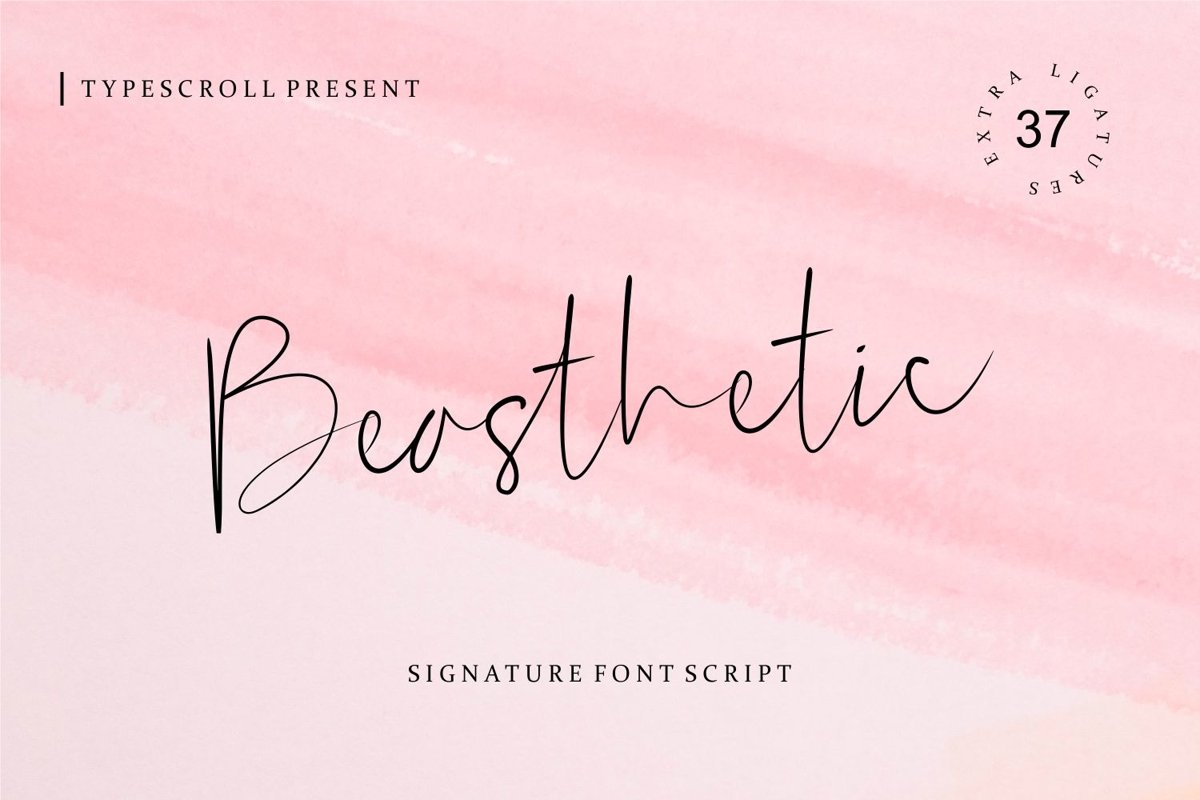
Beasthetic // a Signature Font Script
Beasthetic
Baesthetic Signature Font Script With modern Signature script style this font is perfect for photography, watermark, quotes, Magazine, poster, wedding, branding, logo, fashion, apparel, letter, invitation and more. Enjoy :)
Beasthetic // a Signature Font Script